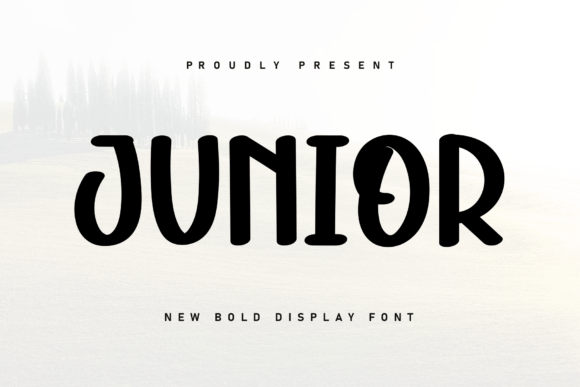
Junior: A Sweet Handwritten Font for Cozy Designs
There's something undeniably charming about a font that feels like it was written by a friend. That's the immediate warmth you get from Junior, a sweet and beautiful handwritten font. Featuring characters that dance along the baseline, this font adds a cozy, personal accent to any design project. It’s more than just a script font; it’s a design asset that brings a human touch to digital creations.
For designers and creators, finding the right typeface is crucial. It sets the entire mood. Junior excels in projects where you want to evoke approachability, creativity, and a gentle, authentic vibe. Think about the first impression a logo makes. Using this handwritten font for a bakery, a boutique studio, or a lifestyle brand instantly communicates care and personality. It moves a brand identity from cold and corporate to warm and inviting.
Where Your Creativity Can Shine
The versatility of a premium font like this is one of its strongest points. It’s not limited to one type of work. Consider using it for:
- Packaging Design: On artisanal products, coffee bags, or cosmetics, it adds a crafted, high-quality feel.
- Social Media Graphics: Create engaging Instagram stories, quote graphics, or promotional posts that stand out with a personal touch.
- Poster & Editorial Design: Use it for headlines in magazines, blog headers, or event posters to draw the eye and set a friendly tone.
- Web Design & Digital Products: Enhance website banners, email newsletters, or e-book covers with a font that feels less rigid and more relatable.
- Invitations & Merchandise: From wedding invitations to tote bag designs, it brings a bespoke, celebratory quality.
Practical Tips for Using a Handwritten Font
While a creative font like Junior is beautiful, using it effectively requires a bit of strategy. Here’s how to make the most of it in your projects:
Pair it wisely. A flowing script font often works best when balanced with a clean, simple sans serif font for body text. This ensures readability while maintaining visual interest. Test different font pairings to find a combination that feels harmonious.
Consider the context. Always check the font’s readability at the size you intend to use it. Its dancing baseline is perfect for short headlines and accents but might be challenging for long paragraphs. Match the font’s mood to your project’s message—it’s ideal for heartfelt, playful, or rustic themes.
Elevating Your Professional Presentation
The right display font does more than just display text; it builds visual consistency. When you integrate a typeface like Junior across your branding materials—from your logo to your website to your packaging—it reinforces recognition. It becomes a key part of your brand’s visual language, making your work look polished and intentionally designed.
Choosing a well-crafted typeface is an investment in your project’s quality. It shows attention to detail and an understanding of how typography influences perception. A font that feels authentic, like this beautiful handwritten option, can be the subtle element that makes your design feel complete and genuinely connect with your audience.